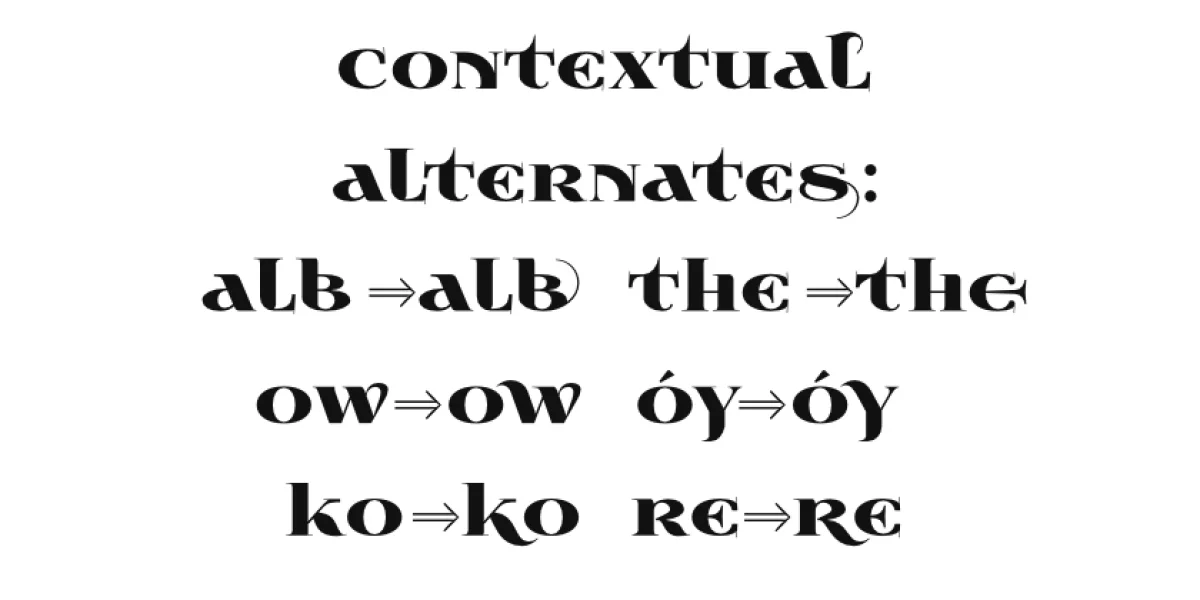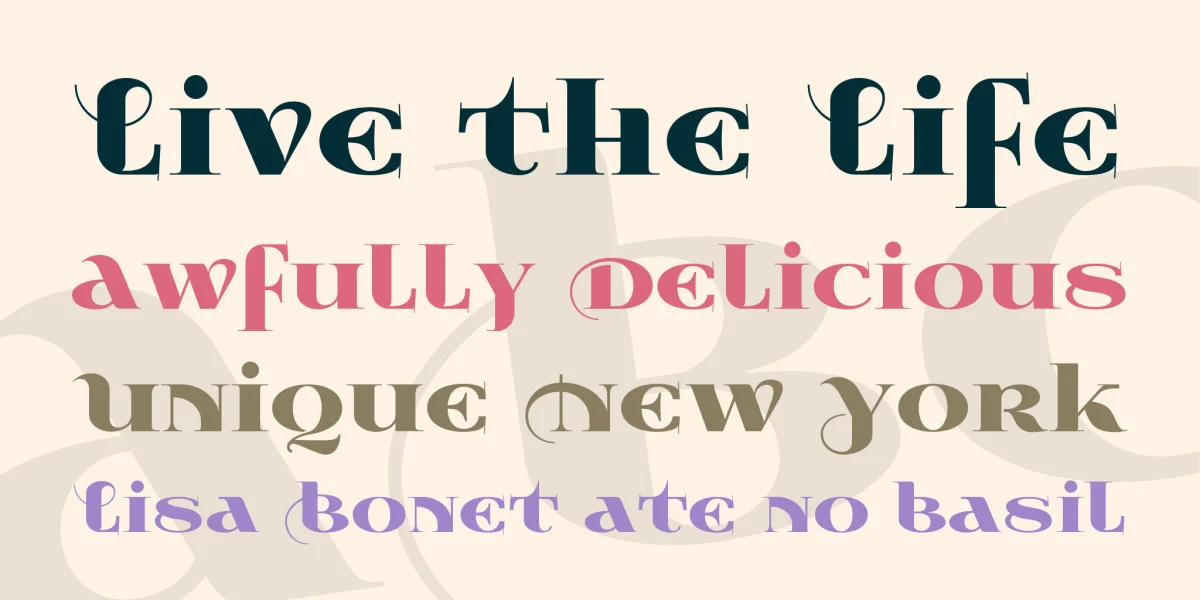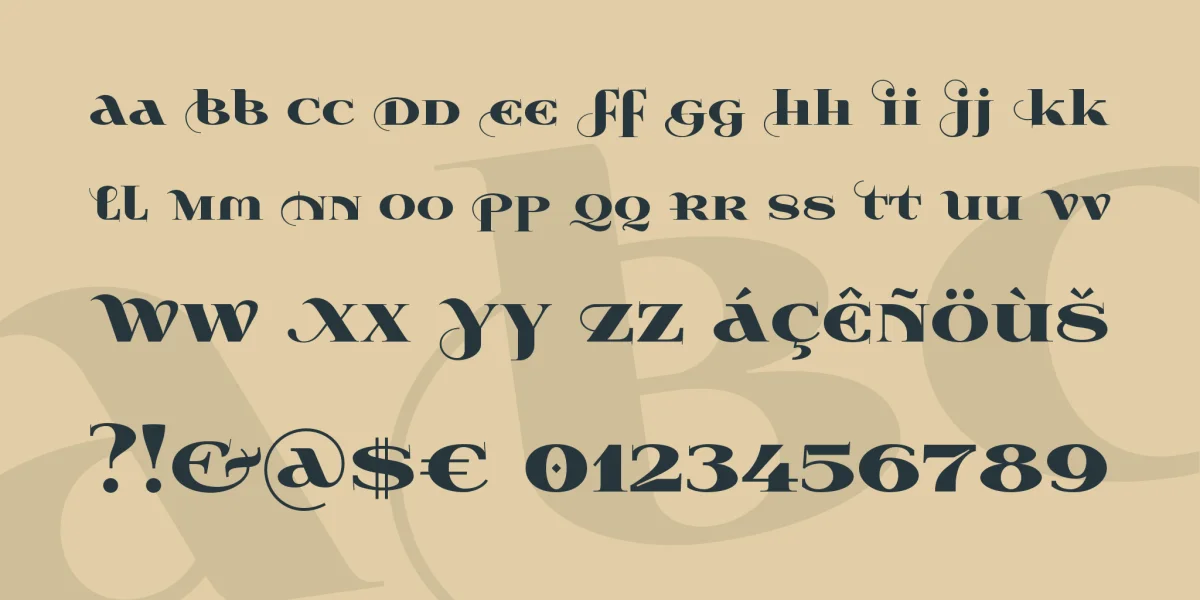
Decorative font Wabroye with contextual alternates, terminal contextual alternates and decorative glyphs (as majuscule). Font in OTF and opentype TTF version.